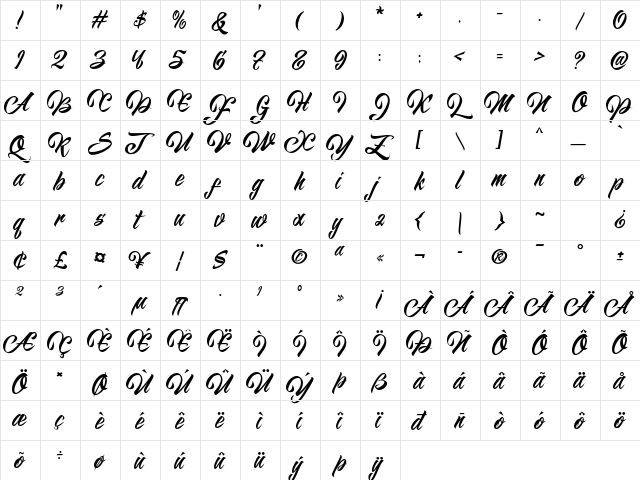
Magnitudo Regular
| Designer | Ahmad Zulfikar Ali, Syahida Yasya |
Design Context for Magnitudo Typeface
Magnitudo is a composed and adaptable typeface that performs quietly and consistently across a wide range of design contexts.